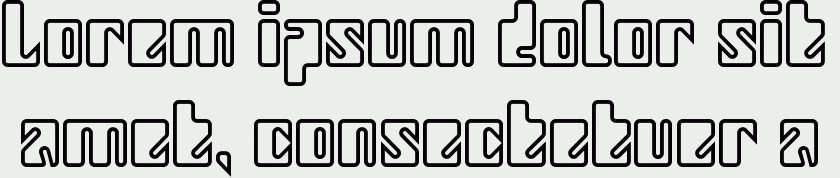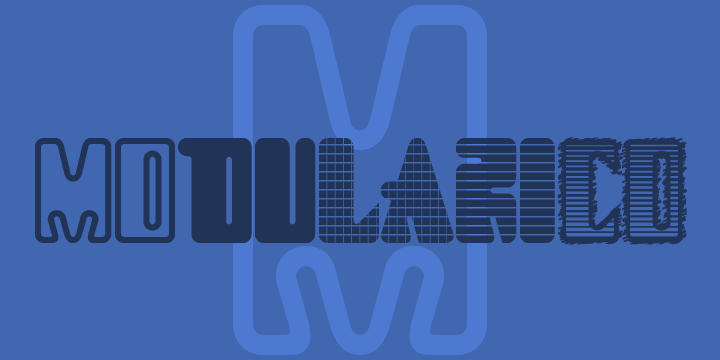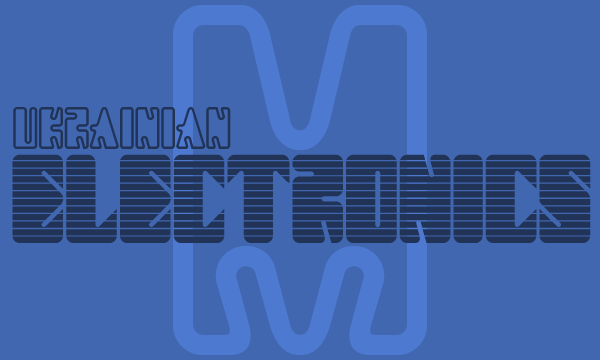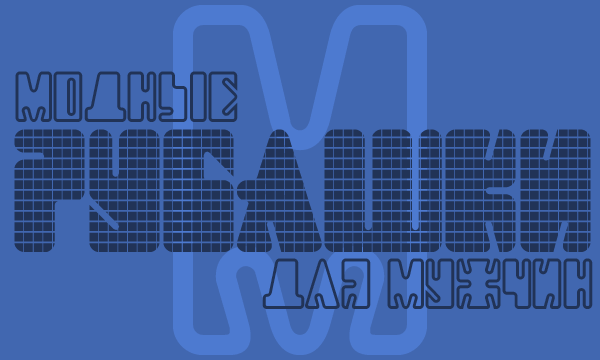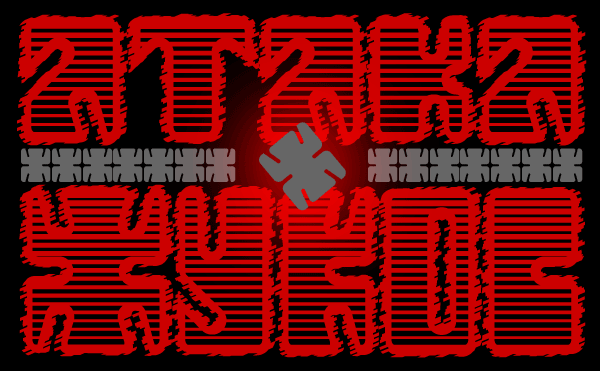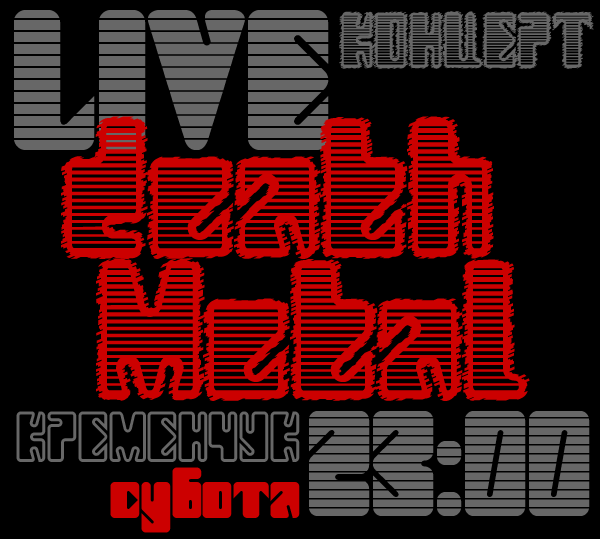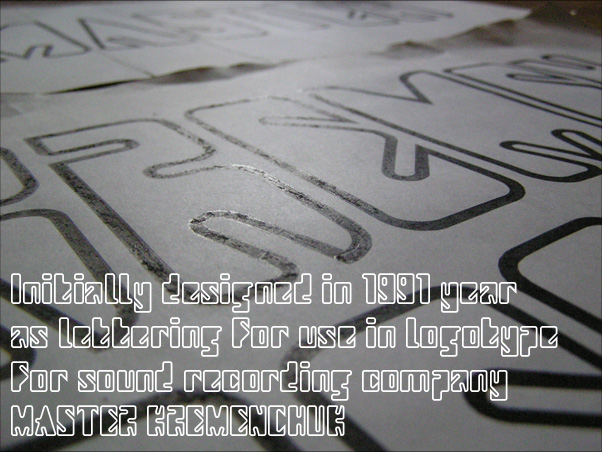
Modularico 4F
/ Modularico A 4F
Modularico was initially designed in 1991 for the logotype of a sound recording studio in Kremenchuk city. At the end of 2008 I decided to make a digital version of this font. Final design of font was finished in June 2009.
Designer: Sergiy Tkachenko